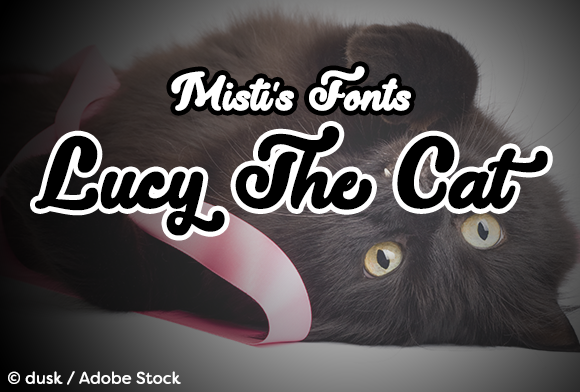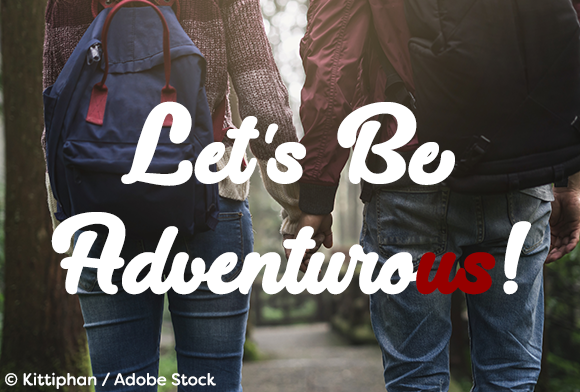
Lucy the Cat Font
About Lucy the Cat Font
Lucy The Cat is a bold script typeface that is perfect for business branding and more. This retro inspired font is the perfect logotype option for your projects, and has a simple yet highly stylish appeal.